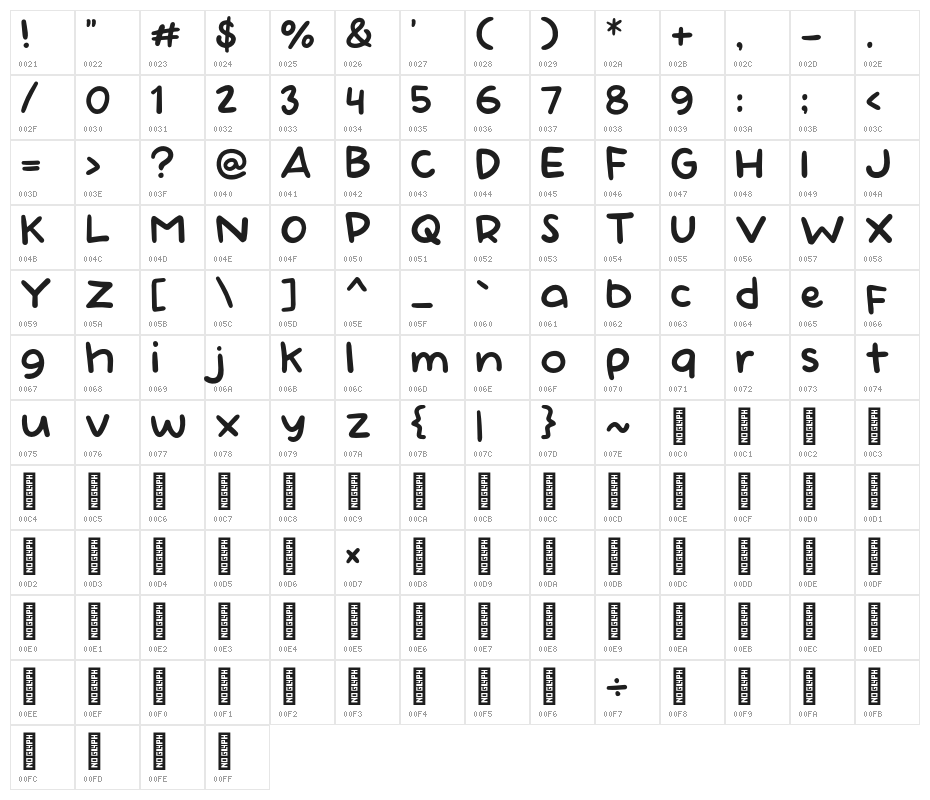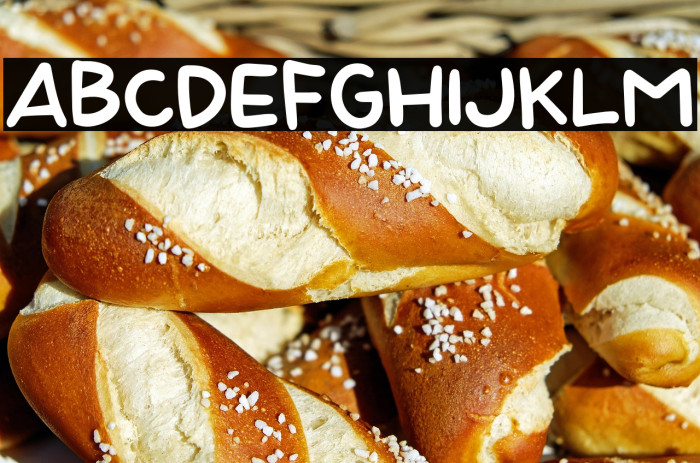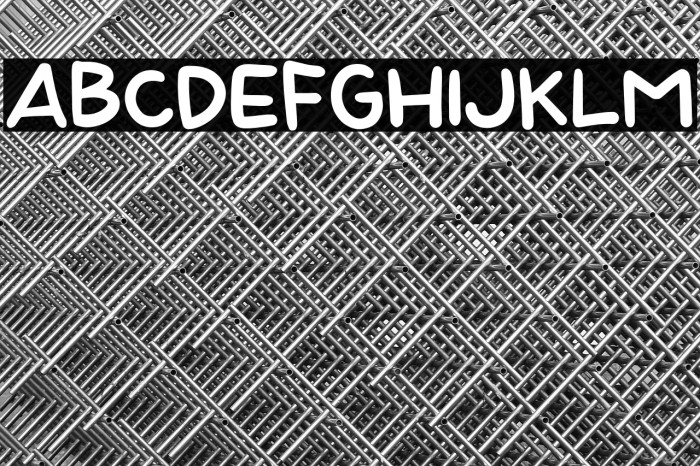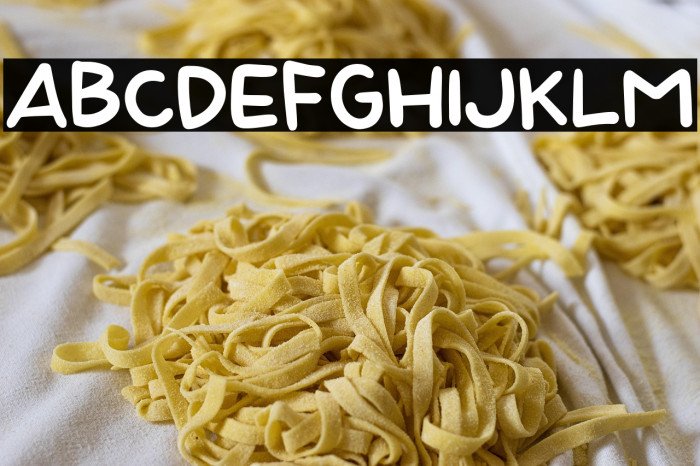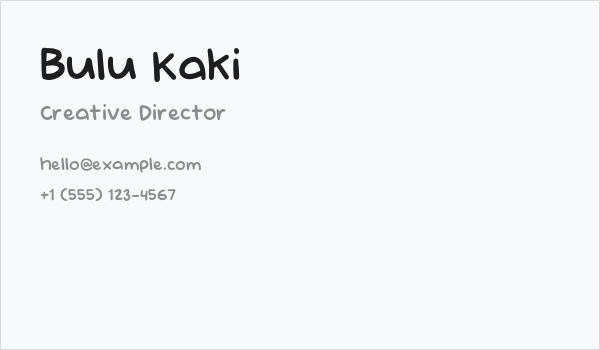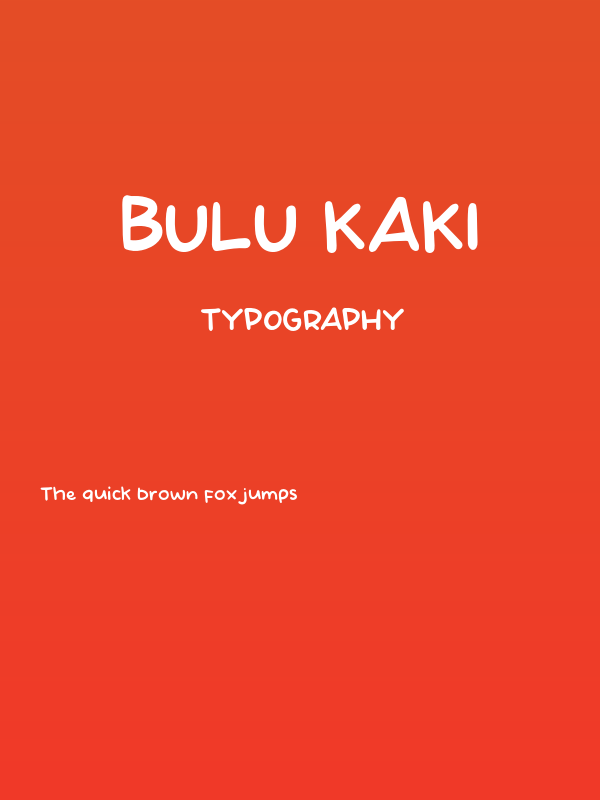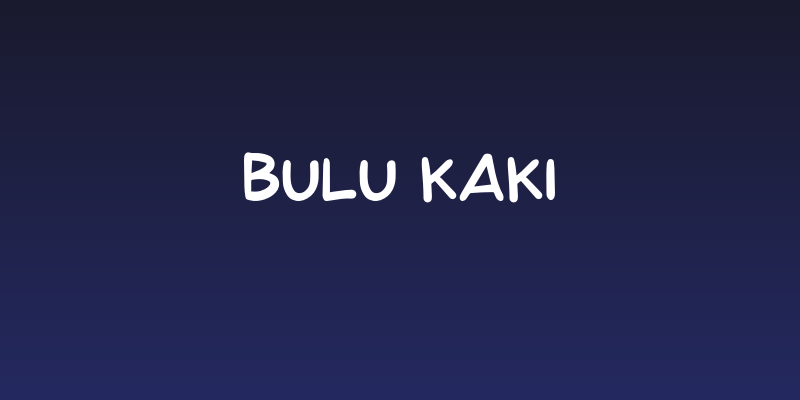
Bulu Kaki Font
Bulu Kaki Description
This playful and rounded font exudes a friendly and approachable vibe, making it ideal for casual and fun design projects. The characters are bold and slightly irregular, giving them a hand-drawn appearance that adds a personal touch. The font maintains consistent stroke thickness throughout, ensuring readability while retaining its whimsical charm. Its rounded edges and smooth curves contribute to a soft and inviting aesthetic, perfect for projects aimed at children or informal settings. The font includes a full set of uppercase and lowercase letters, numbers, and a variety of special characters, providing versatility for different design needs.
| Use Case | Logos, Headlines, Informal Text |
| Proposed Projects | Ideal for children's books, playful branding, greeting cards, and informal invitations. |